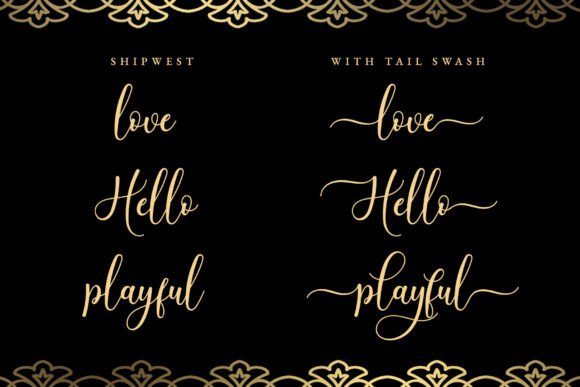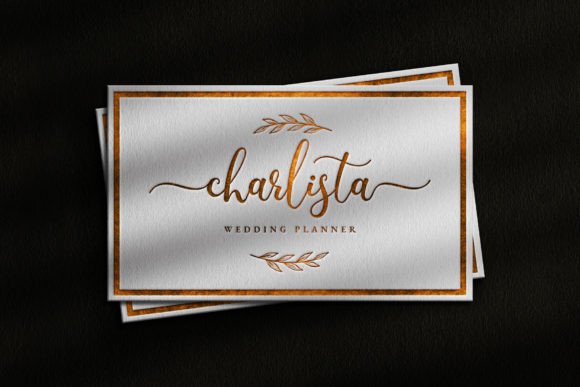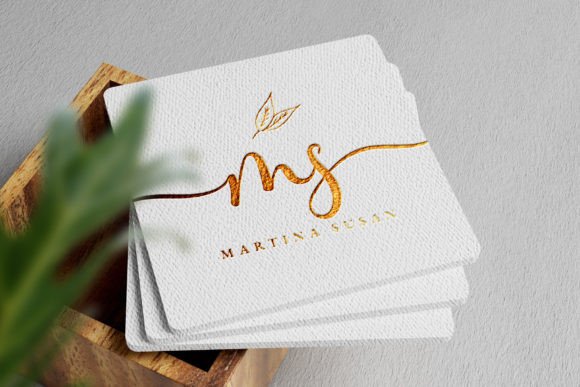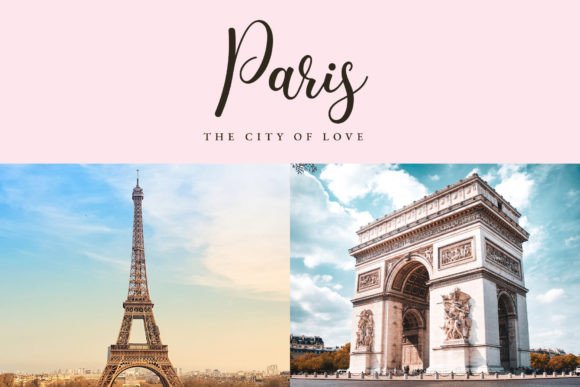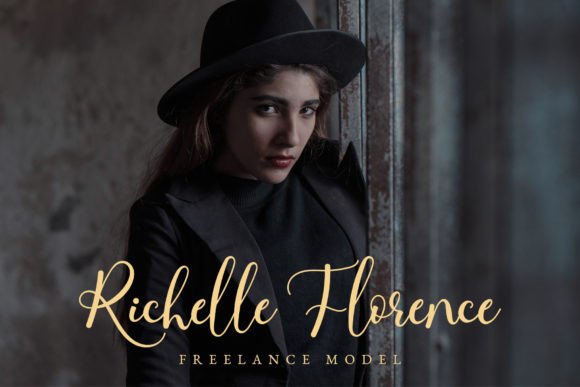
Introduction to Shipwest Font
Shipwest is a bouncy handwritten script font.
It is casual, elegant, and stylish I Shipwest looks stunning on wedding invitations, thank you cards, quotes, greeting cards, logos, business cards, and every other design which needs a handwritten touch.